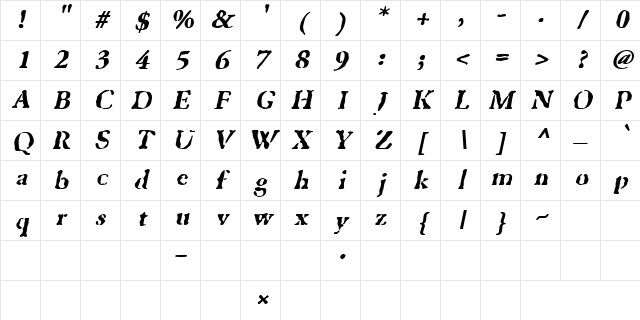
GhostTown BlackItalic Free Font
GhostTown BlackItalic
Style: BlackItalic
Design Context for GhostTown
GhostTown is a composed and adaptable typeface that performs quietly and consistently across a wide range of design contexts. The slanted form adds forward momentum and visual energy.
Pro Tip: Use GhostTown for emphasis, pull quotes, and subheadings where its slanted energy can add rhythm to the layout.